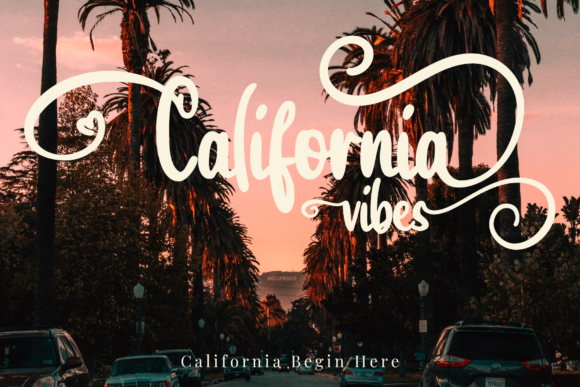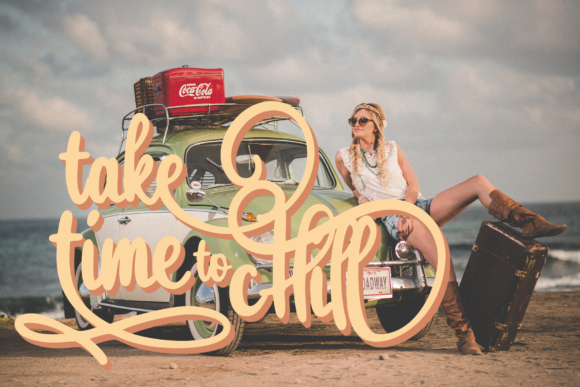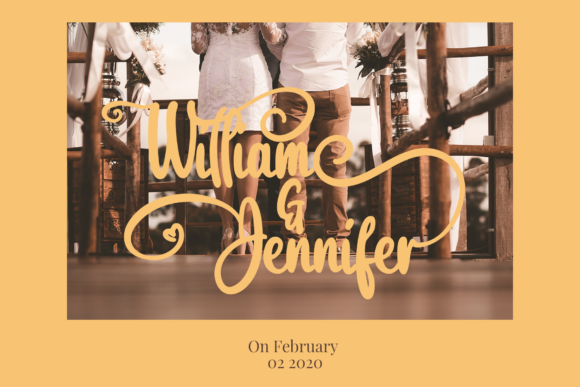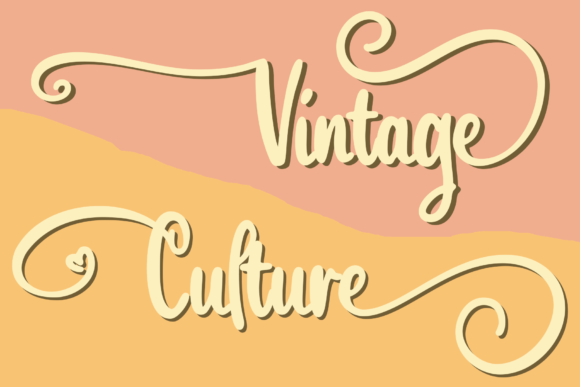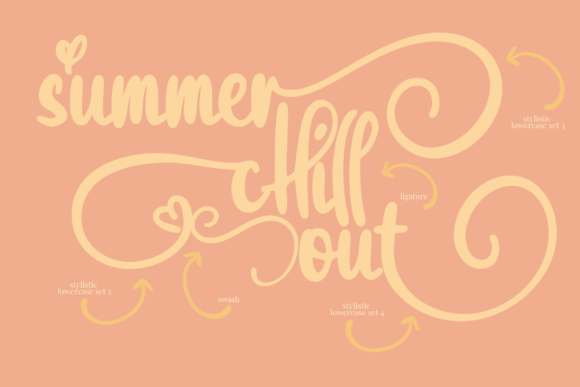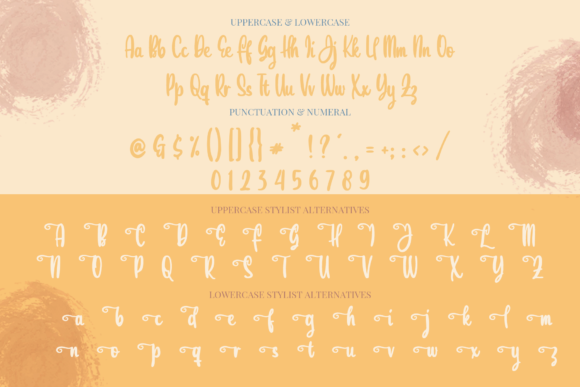
Introduction to Julia Eberline Font
Julia Eberline is an exquisite handwritten font, masterfully designed to become a true favorite.
Key Features of Julia Eberline Font
Why Choose Julia Eberline Font?